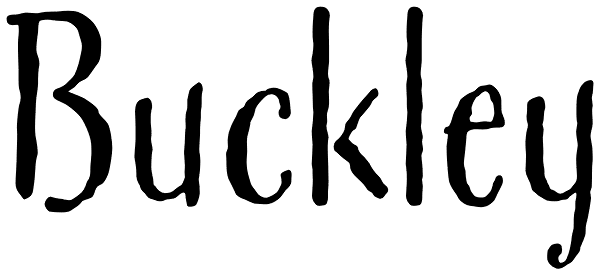
Buckley
Friendly, happy, and casual, Buckley is a condensed, upright hand-lettered font based on characters created with my favorite vintage fountain pen (a Waterman Ideal #2). Its textured strokes evoke its ink-on-paper origins, while randomized contextual...